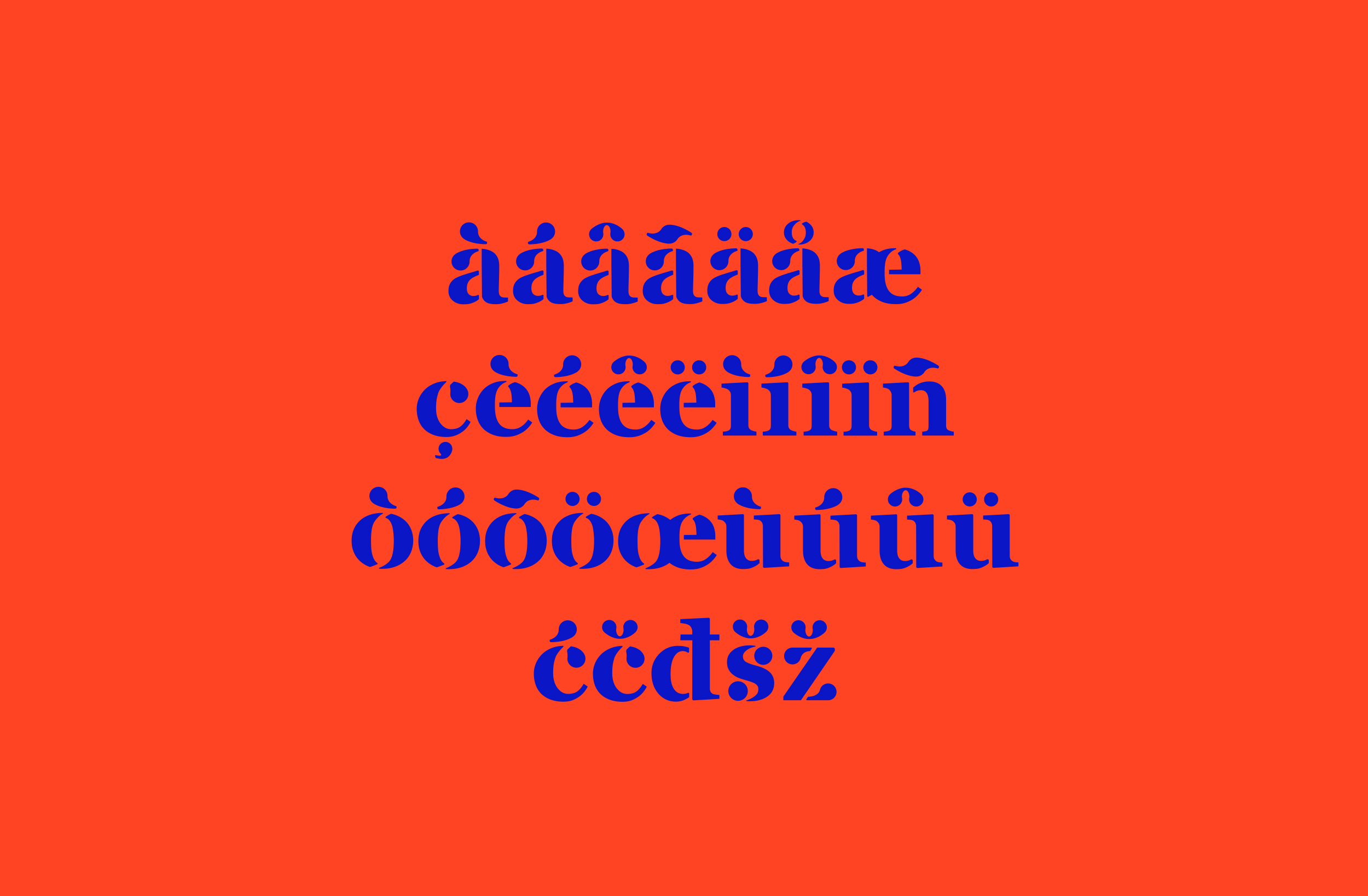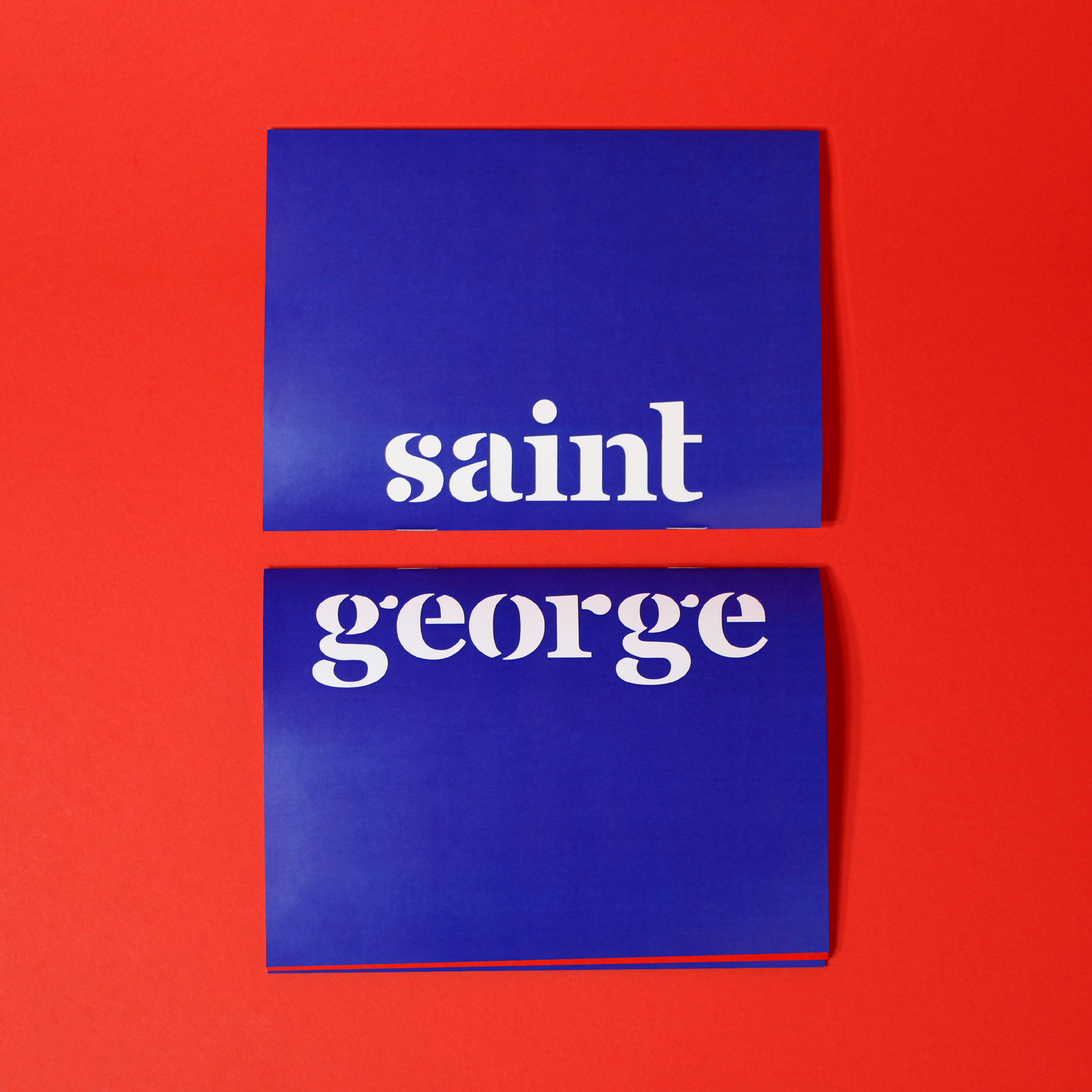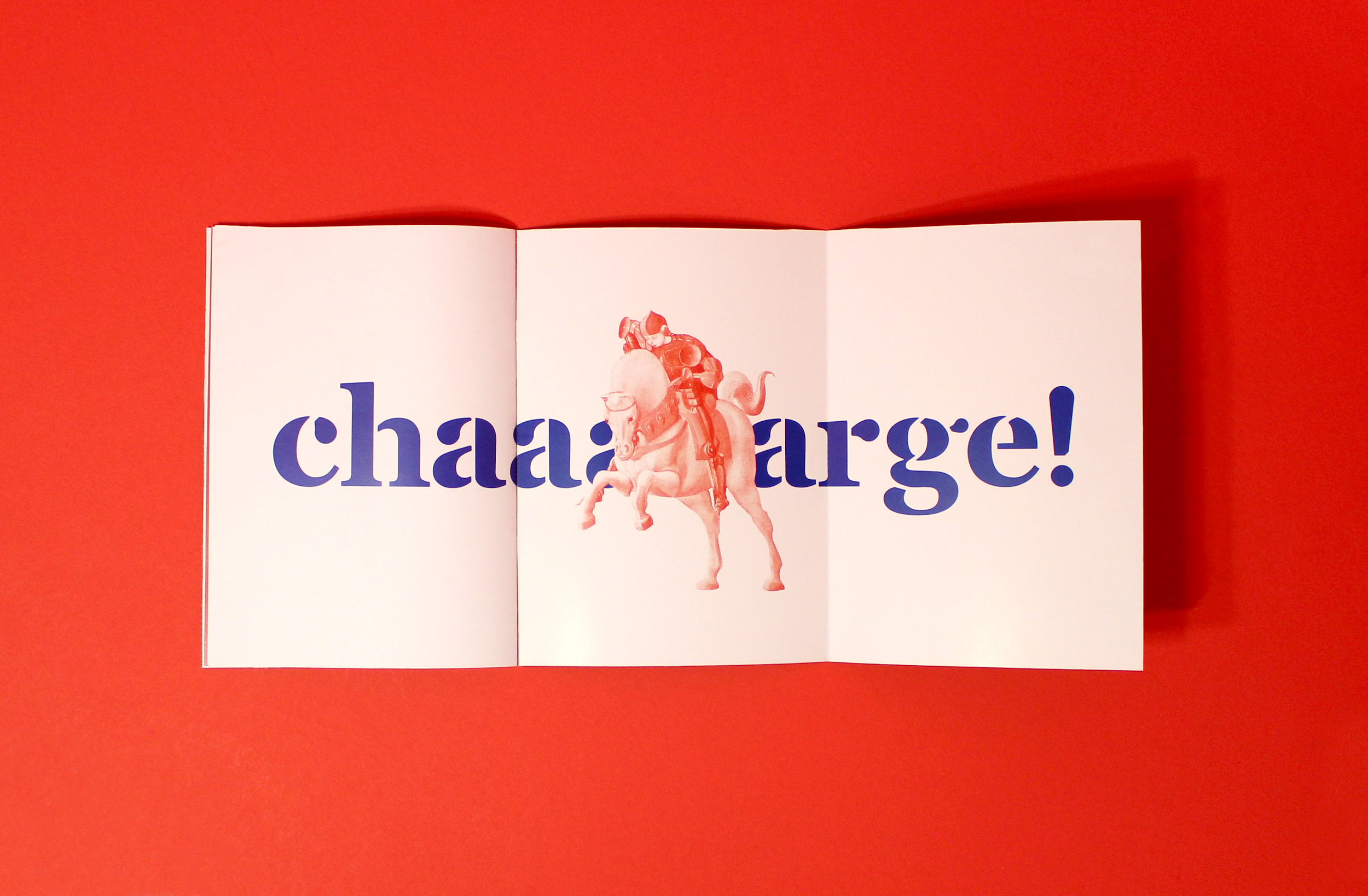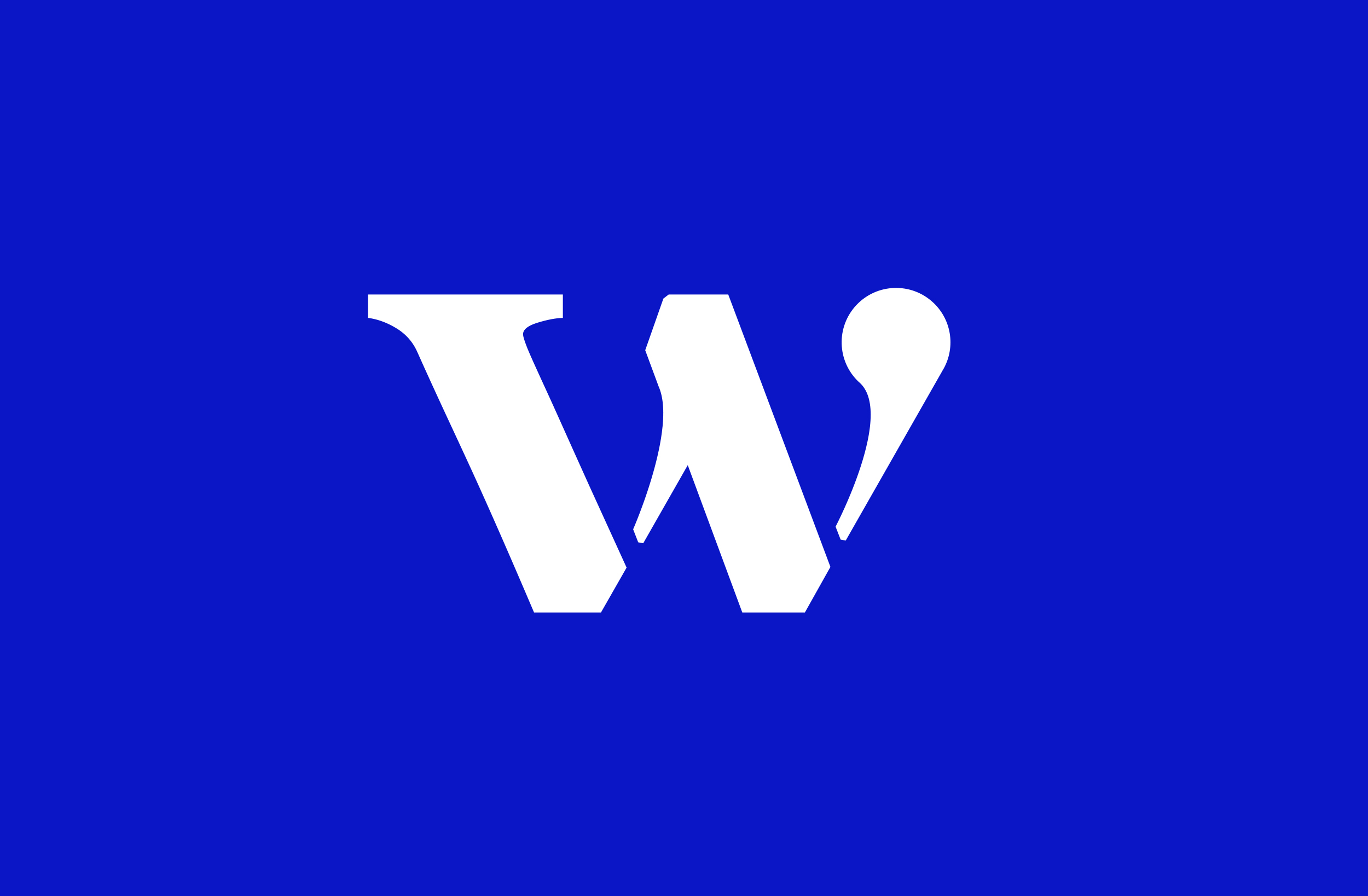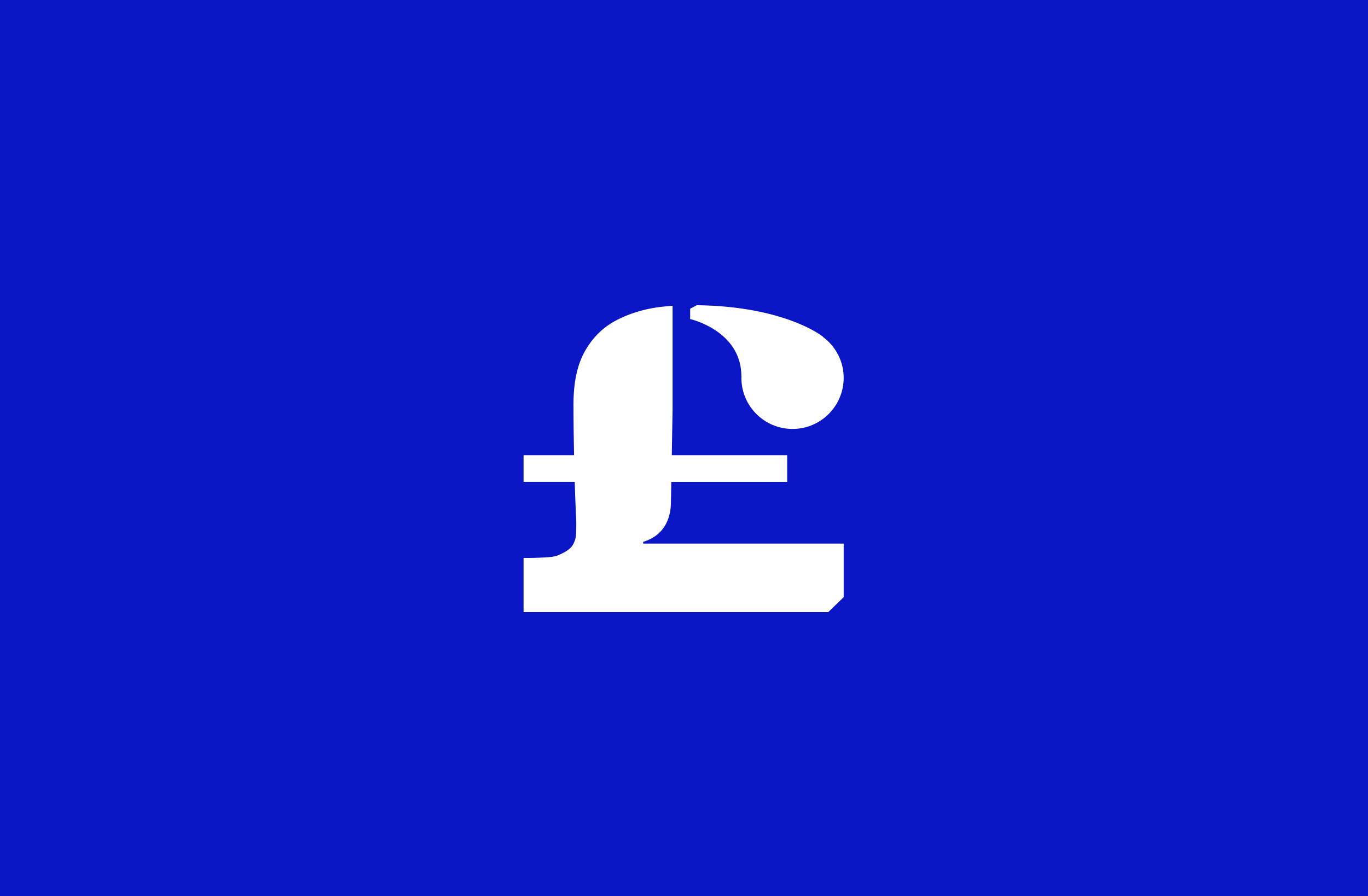
The inspiration for the theme comes from the name of the original which morphed to Saint George. Since the stencil shapes got more wild and playful, the tone of the theme had appropriated humour and twisting of the basic christian tale of Saint George.